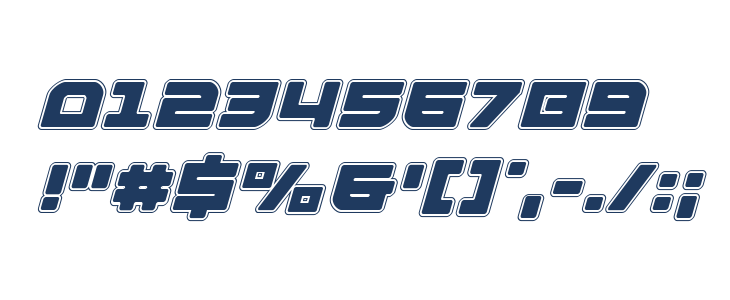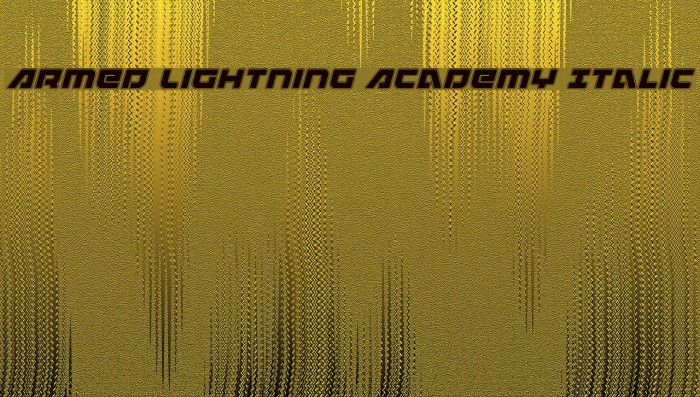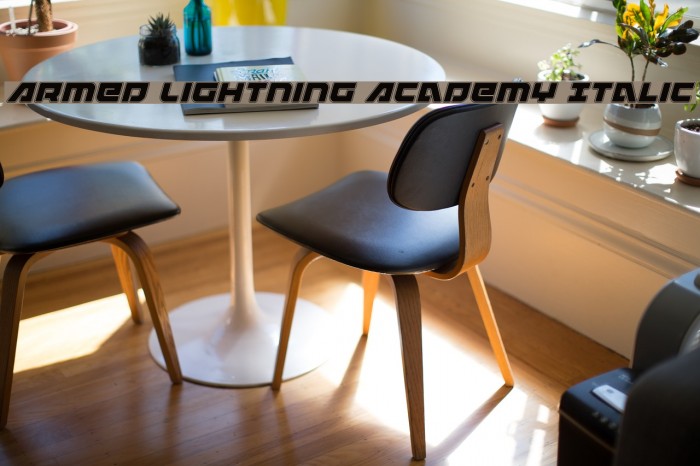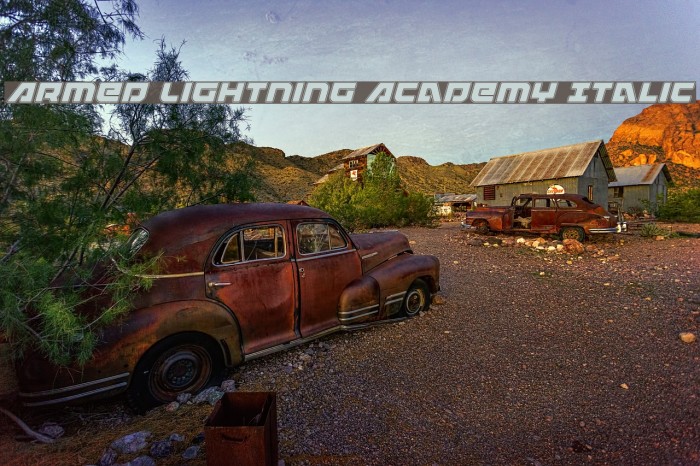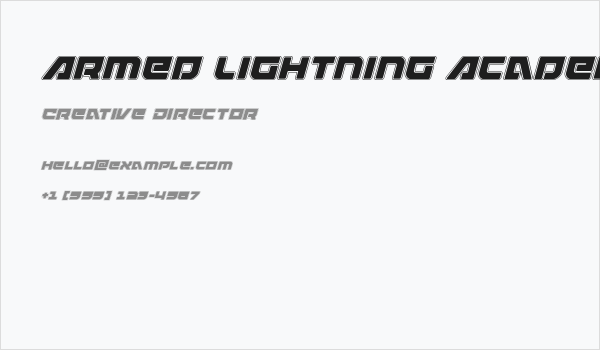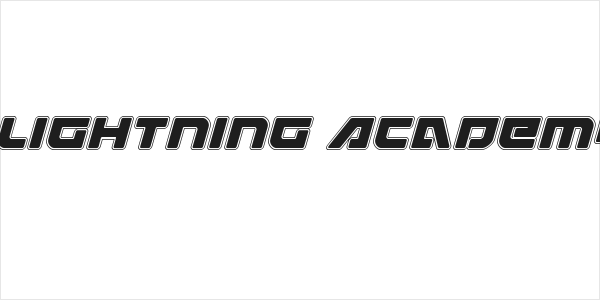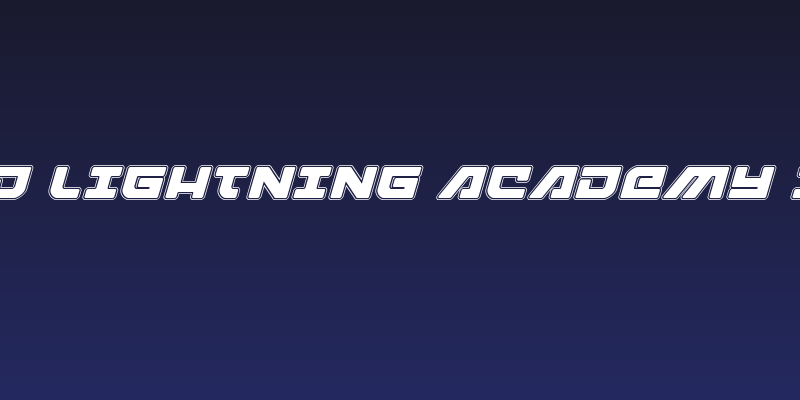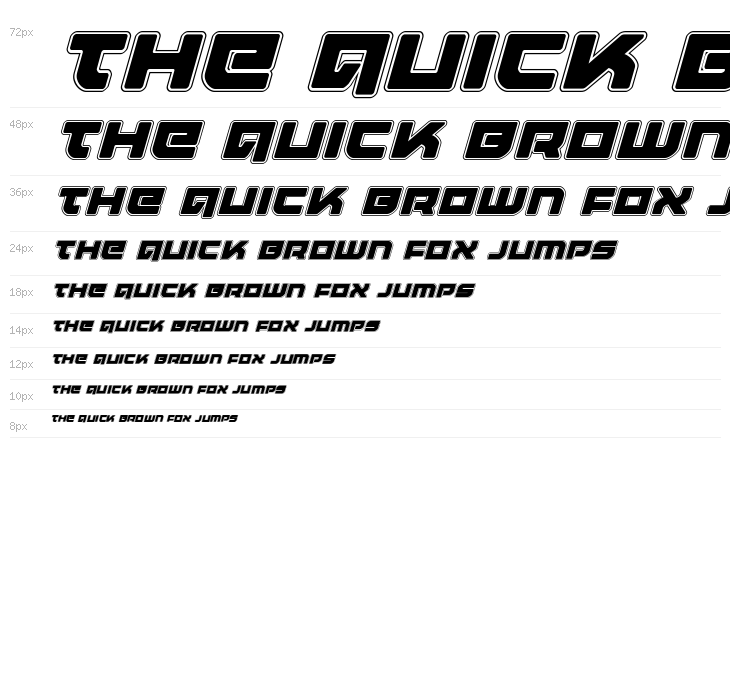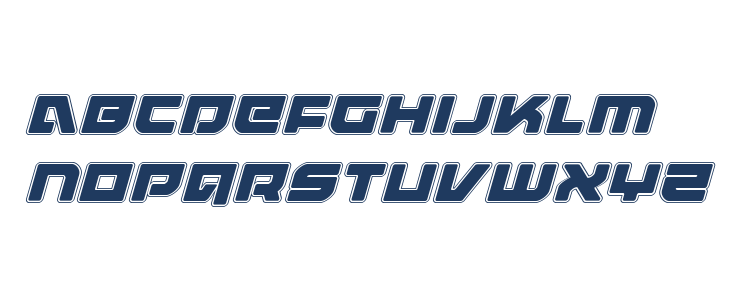
Armed Lightning Academy Italic Font
Armed Lightning Academy Italic Description
This font features a bold, italicized style with a distinct, futuristic appearance. The characters are outlined with a thick border, creating a striking contrast between the inner and outer edges. The angular design and slanted orientation give it a dynamic and energetic feel, reminiscent of speed and movement. The uppercase and lowercase letters maintain a consistent style, with sharp edges and a slightly condensed form. The numbers and special characters follow the same design principles, ensuring uniformity across all glyphs. This font is ideal for projects that require a modern and impactful look.
| Proposed Projects | Ideal for sports branding, tech-related designs, video game titles, and dynamic posters. |